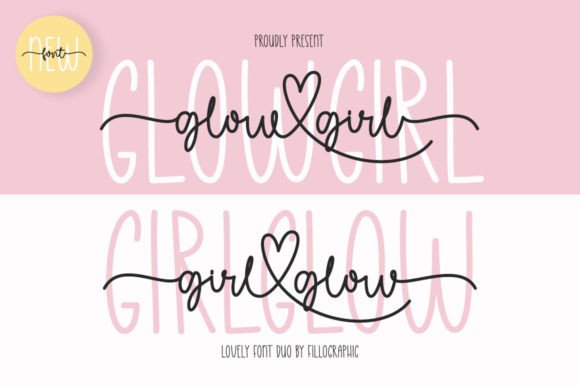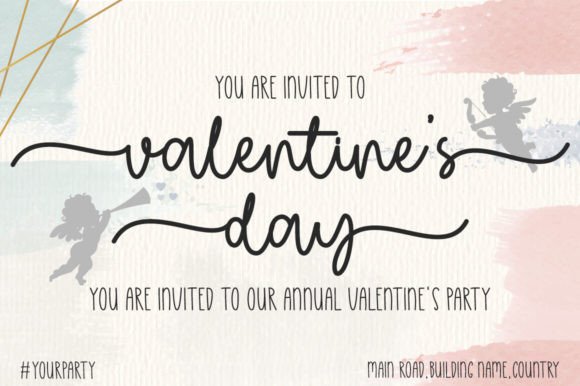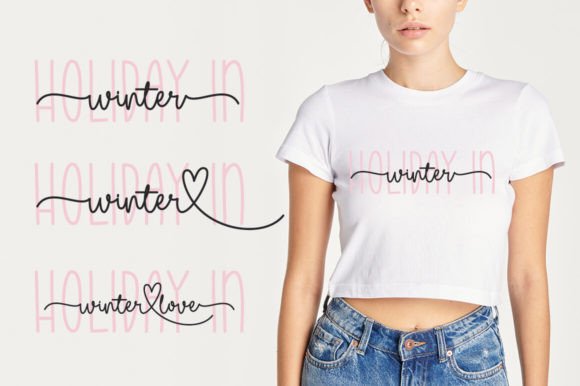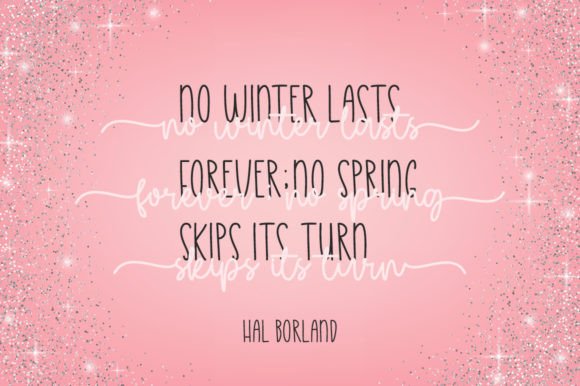
Glow Girl Font
About the Glow Girl Font
Add a touch of class to your work with the Glow Girl Font, a truly exceptional typeface. Glow Girl consists of two handwritten fonts designed to complement each other perfectly. Together or apart, these fonts are ideal for adding a chic and cheery touch to your crafts.GlowGirl is PUA encoded which means you can access all glyphs and swashes with ease!
Glow Girl’s playful, yet elegant, style makes it perfect for branding projects needing a touch of whimsy, particularly logos, short headlines, and social media graphics. It also works well on packaging for products aimed at a younger, female demographic or those emphasizing a fun, approachable brand identity. However, its delicate stroke weight isn’t suitable for body text or lengthy paragraphs, nor is it ideal for user interfaces requiring high readability.
Pair Glow Girl with a clean sans-serif like Montserrat for a balanced contrast, or a more geometric sans-serif like Futura for a modern feel. For a sophisticated touch, consider pairing it with a classic serif such as Garamond. Using a simple, neutral sans-serif will let Glow Girl shine as a headline font and add a touch of personality without overwhelming the design.
Glow Girl Font Usage Examples
Glow Girl Font Example